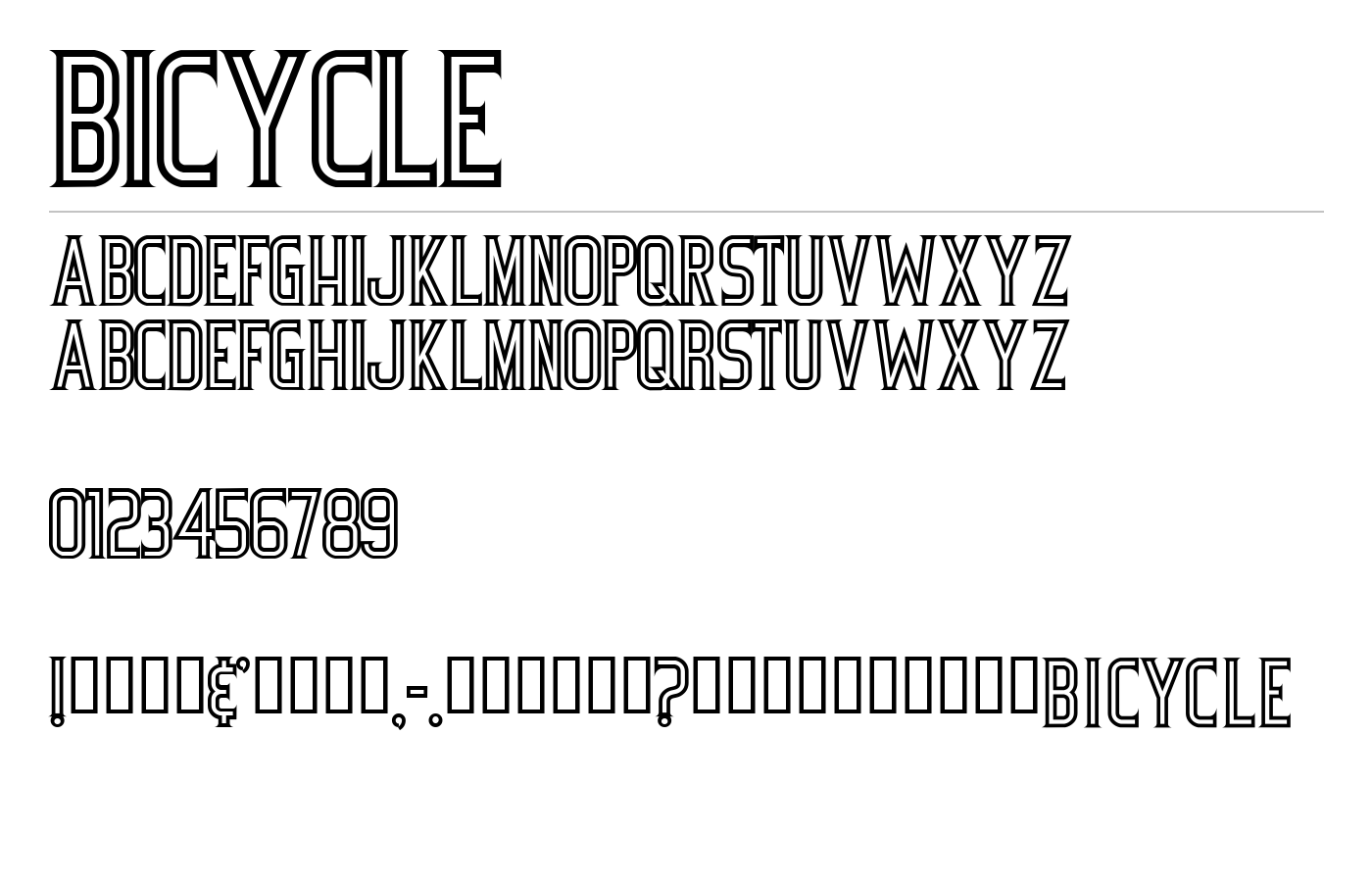
Bicycle Font is a tall, narrow sans serif display typeface characterized by an outlined, geometric construction that gives it a bold and structured feel. Its sharp edges and consistent stroke weight make it perfect for vintage or industrial-inspired designs, while its condensed form suits headlines, logos, and signage that need a strong visual impact. This font works well in creative branding and poster design where a clean yet distinctive typographic presence is desired.
Bicycle Font